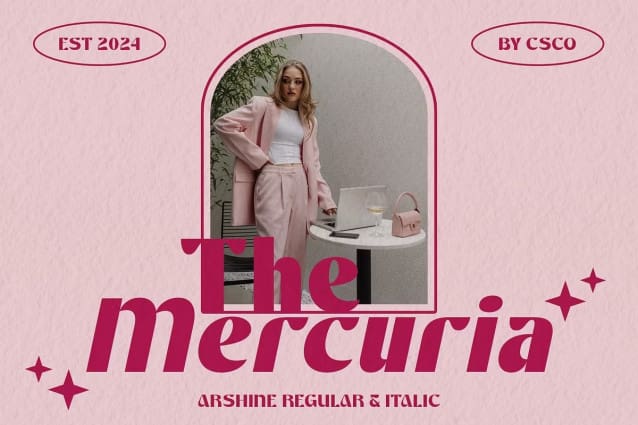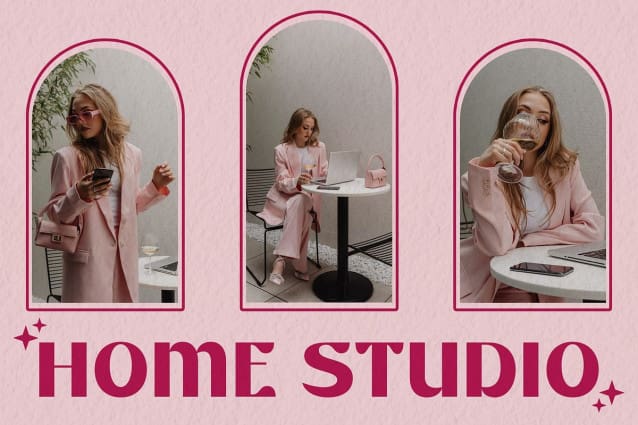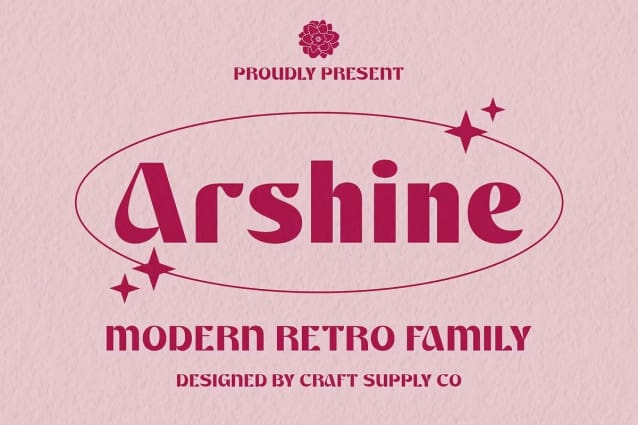
Arshine Display Font
Arshine Display Font: Bold and Funky Retro Vibes.Bold Sans Serif Design Arshine boasts a bold sans serif design that grabs attention and makes a statement in any project. Its strong, assertive characters demand to be noticed.
Funky and Retro Nuances With funky and retro nuances, This font brings a playful and nostalgic vibe to your designs. Its unique style adds personality and flair to any creative endeavor.
Versatile Application From posters to logos, This font is versatile and adaptable to various design needs. Its boldness and retro charm make it suitable for a wide range of projects, adding a touch of fun and excitement.
Eye-Catching Impact This font delivers an eye-catching impact with its bold sans serif style and funky retro vibes. Whether used for headlines, branding, or signage, it ensures your message stands out with its distinctive character.
Bold, Funky, and Retro This font combines boldness, funkiness, and retro charm to create a font that adds excitement and personality to any design. With its versatile application and eye-catching impact, Arshine Display Font is sure to make your projects stand out from the crowd.